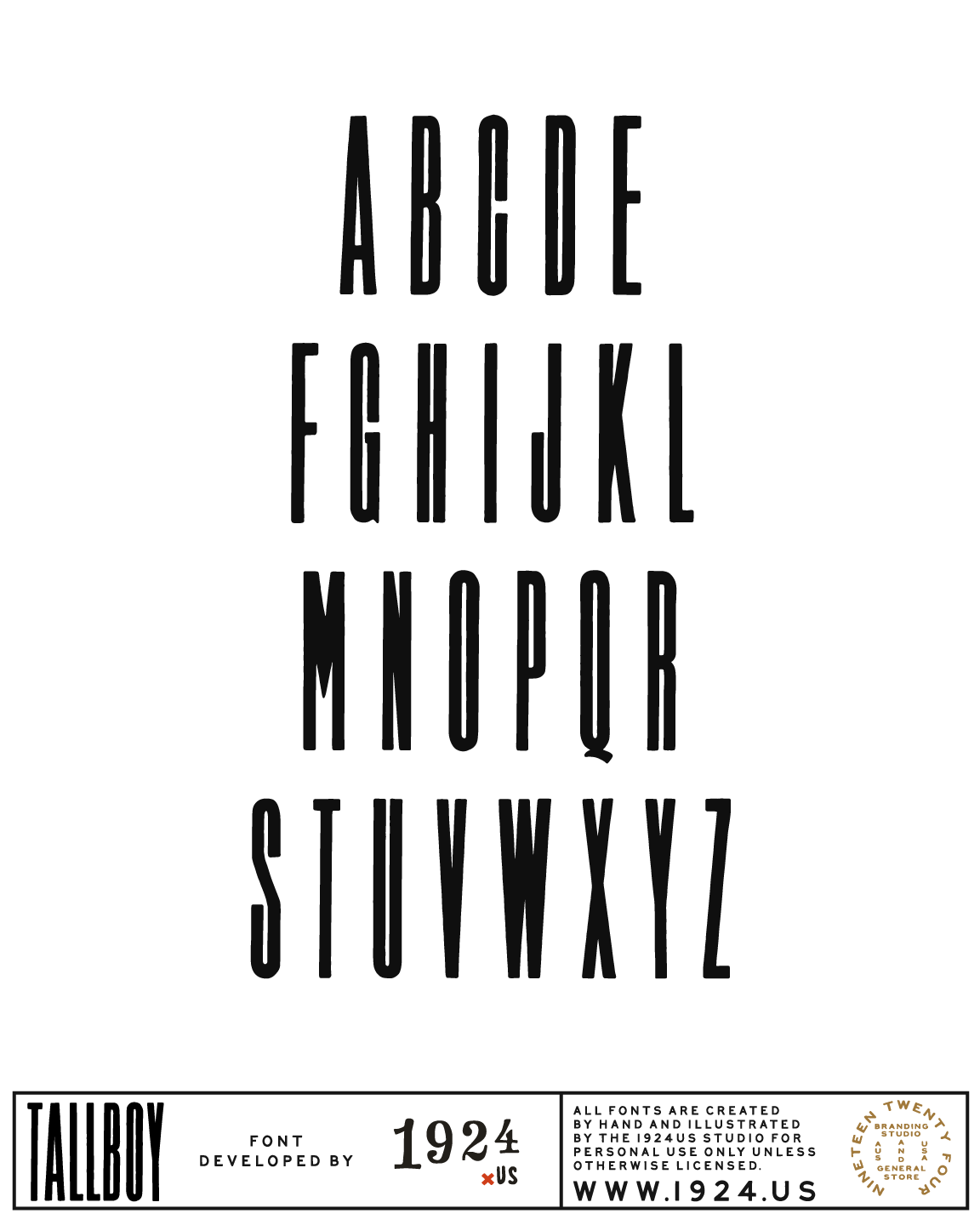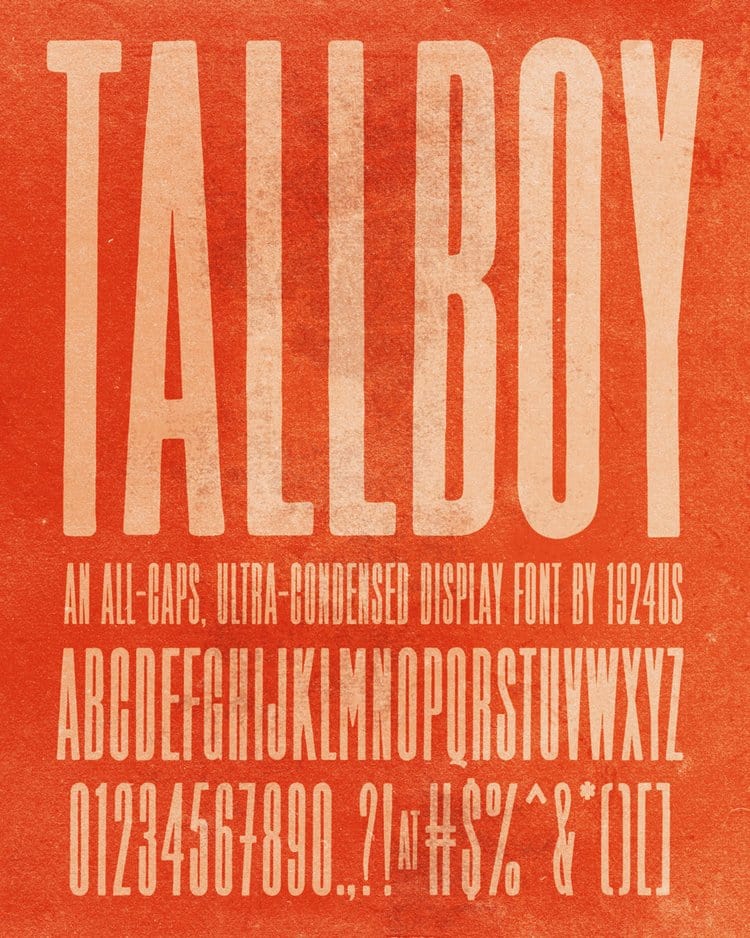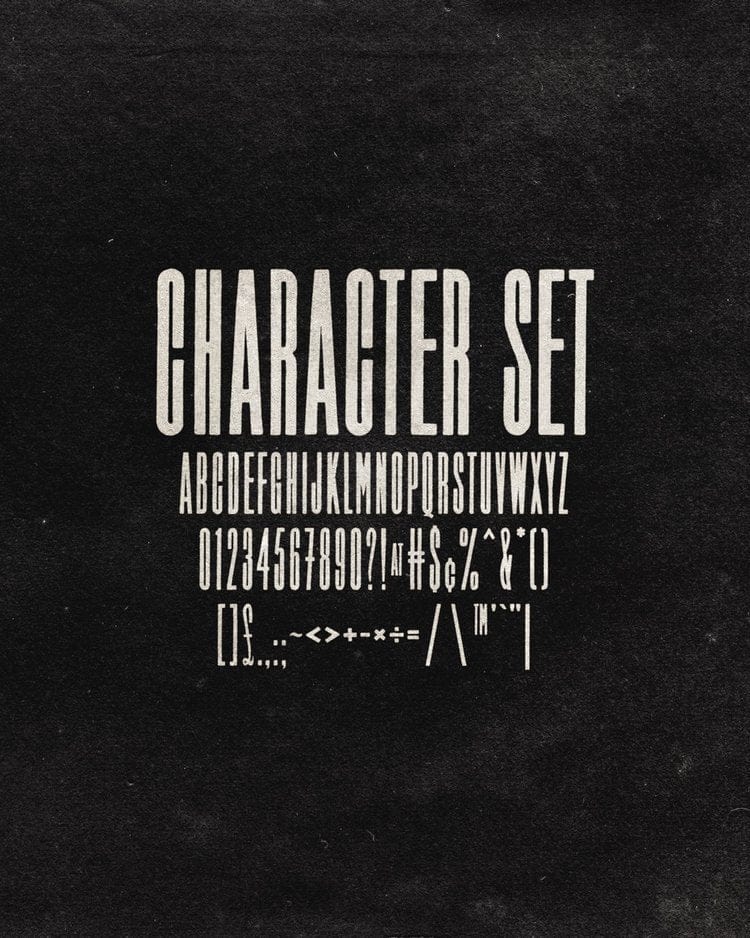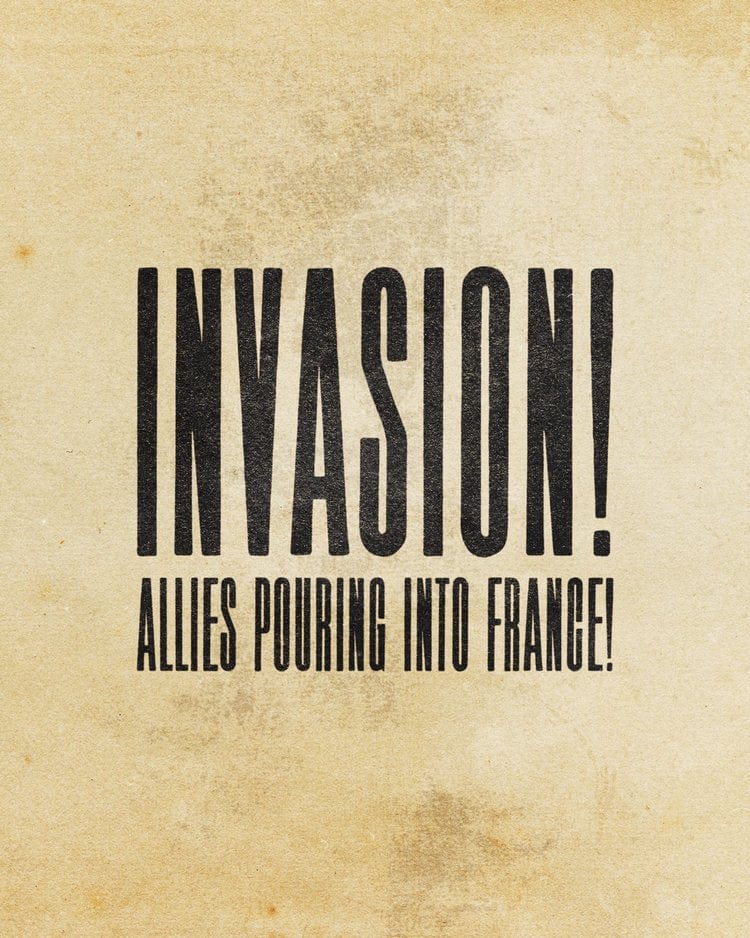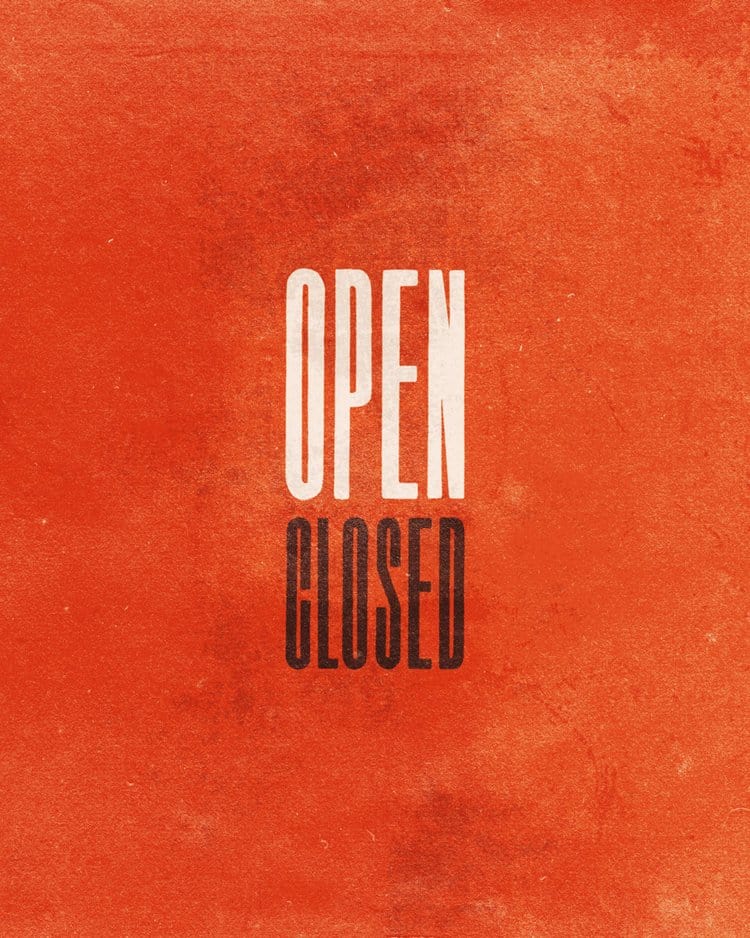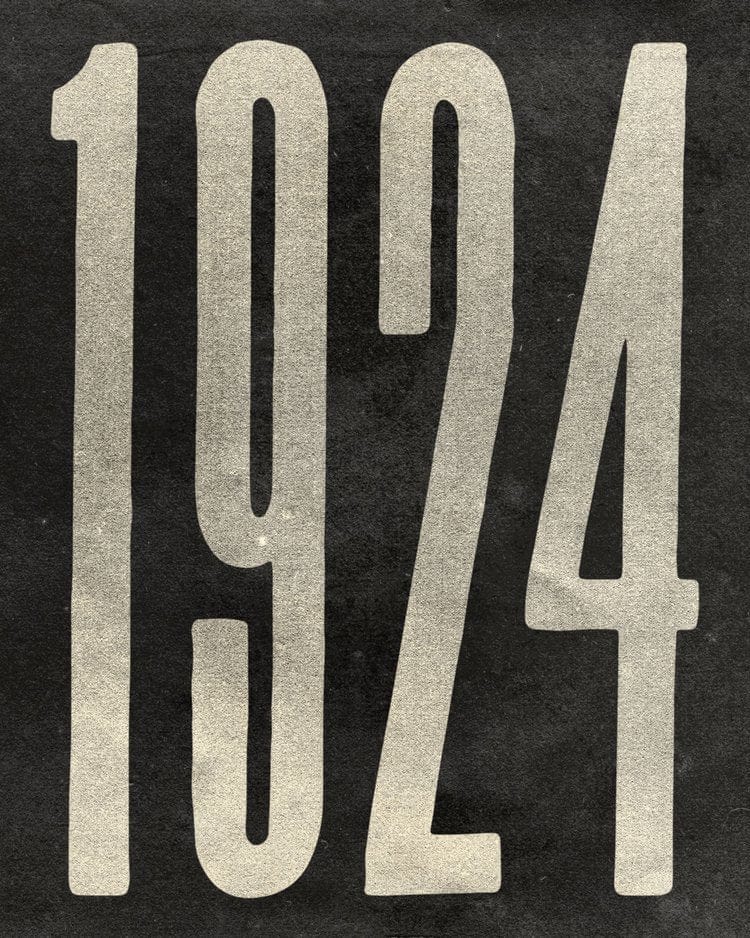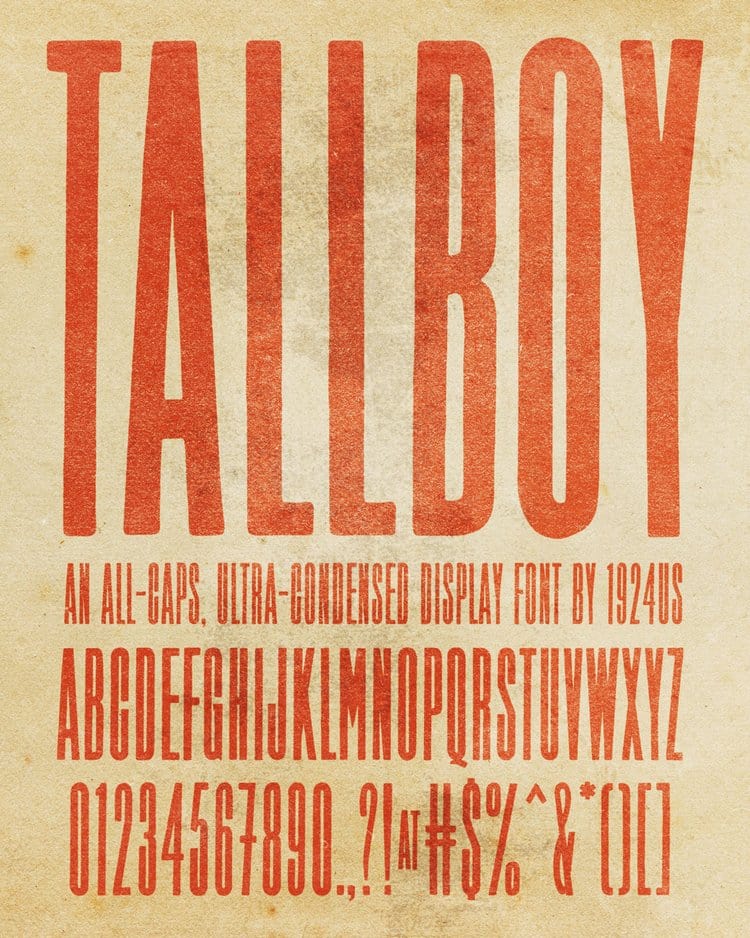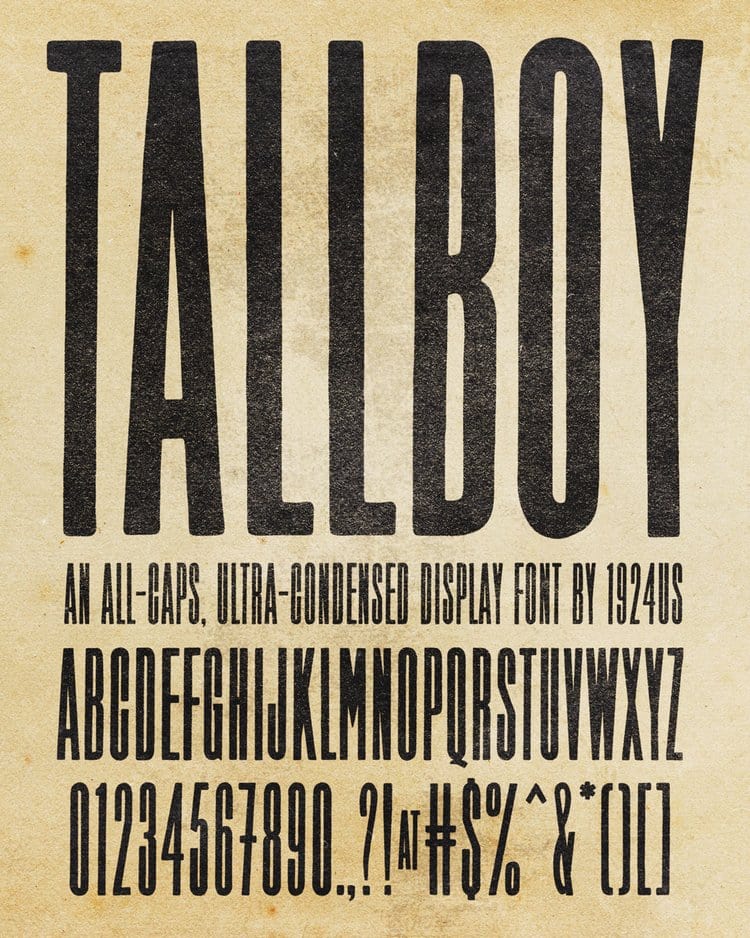
Tallboy Font by 1924us
Introducing Tallboy! A continuation of our wartime newspaper fonts, this typeface pulls from the early 20th century, drawing from the proportions of the most condensed movable type made, prior to the creation of digital fonts.
All-Caps + Basic Latin Character Set included.
Designed and hand-drawn by the 1924us Studio.